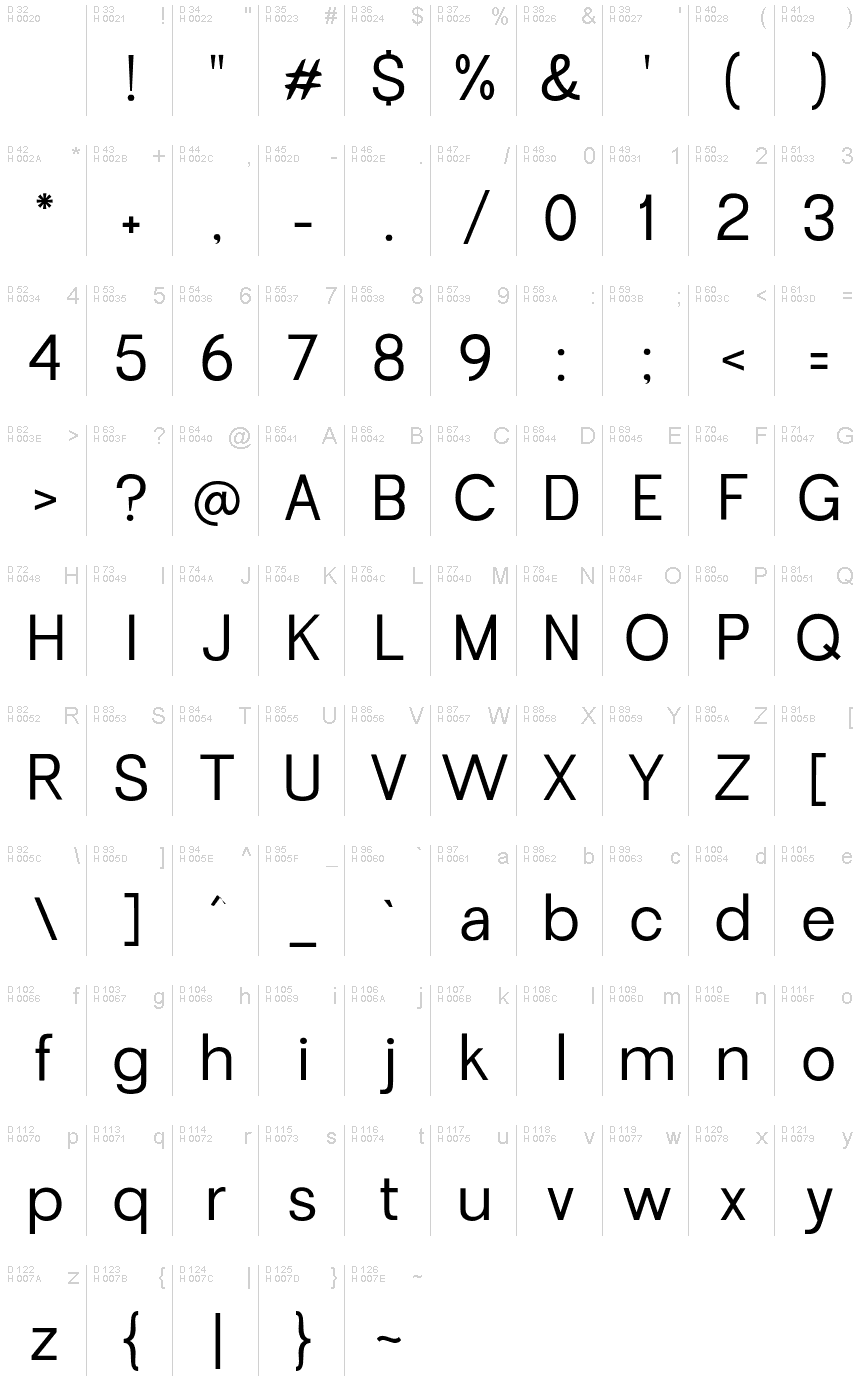
Garute Regular
Introducing Garute, an elegant sans serif font designed by Muhamad Junaid (@mjtype.font). This light weight typeface is perfect for creating modern logos, sleek web designs, and stylish invitations. Bring a touch of sophistication and minimalism to your next project with Garute!